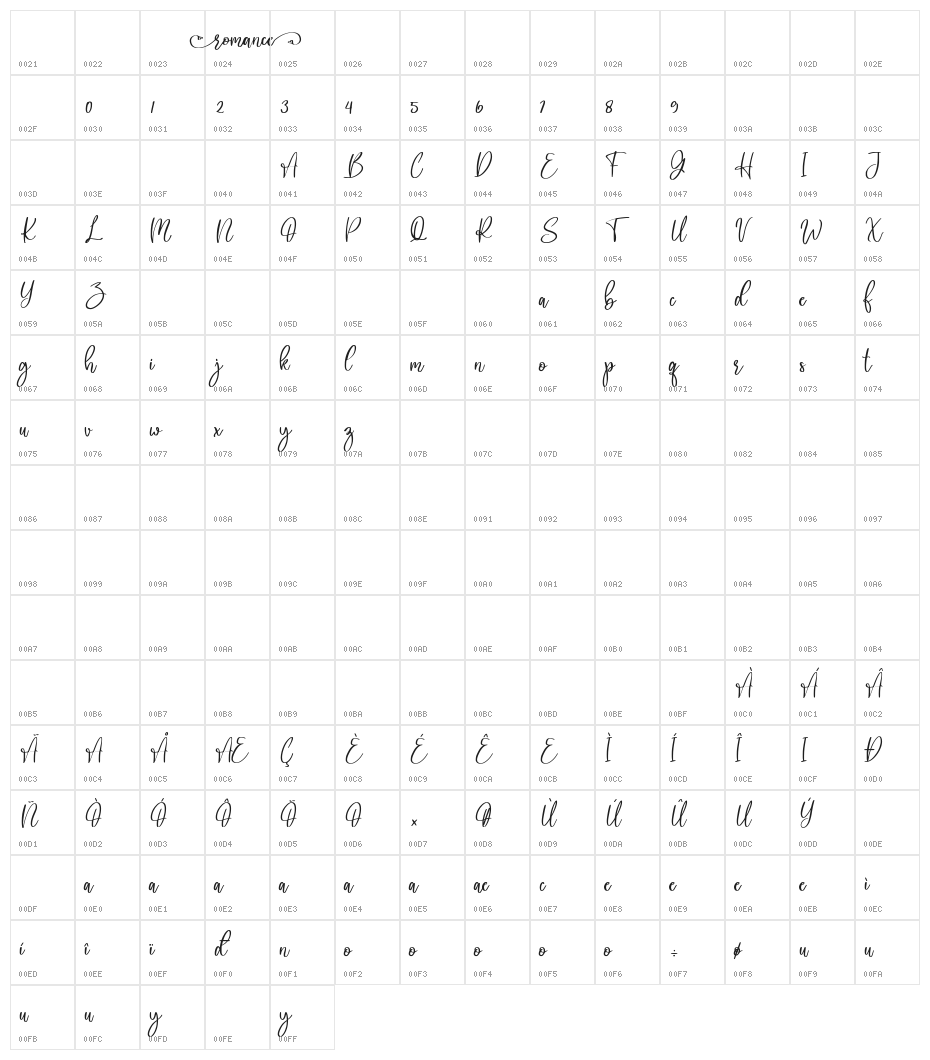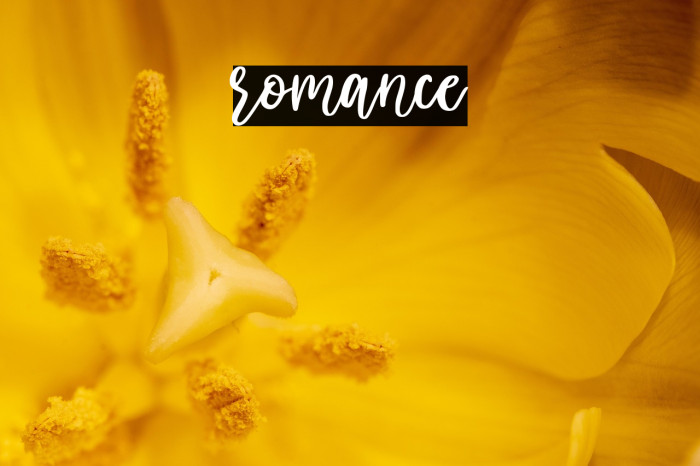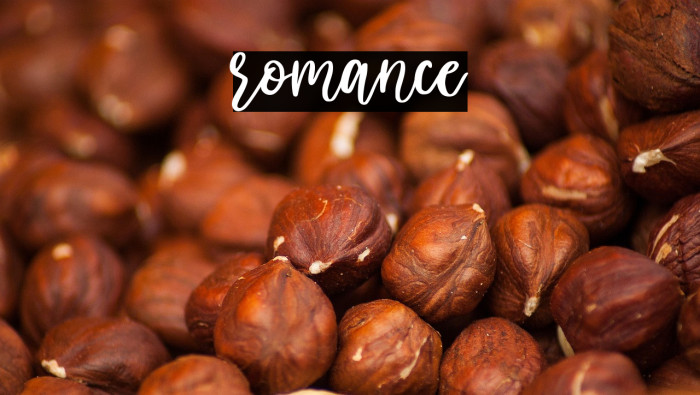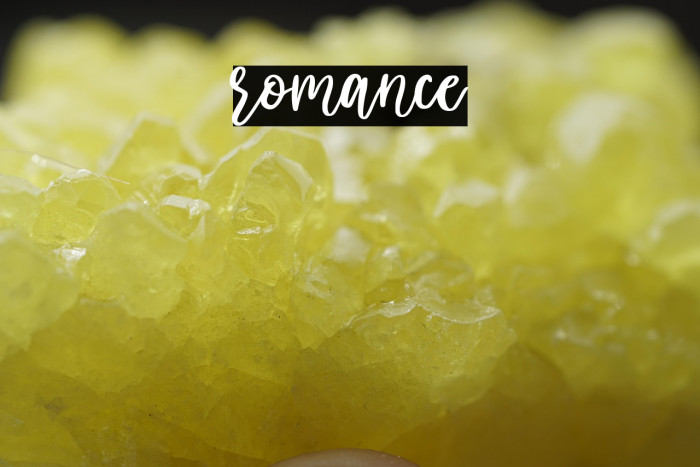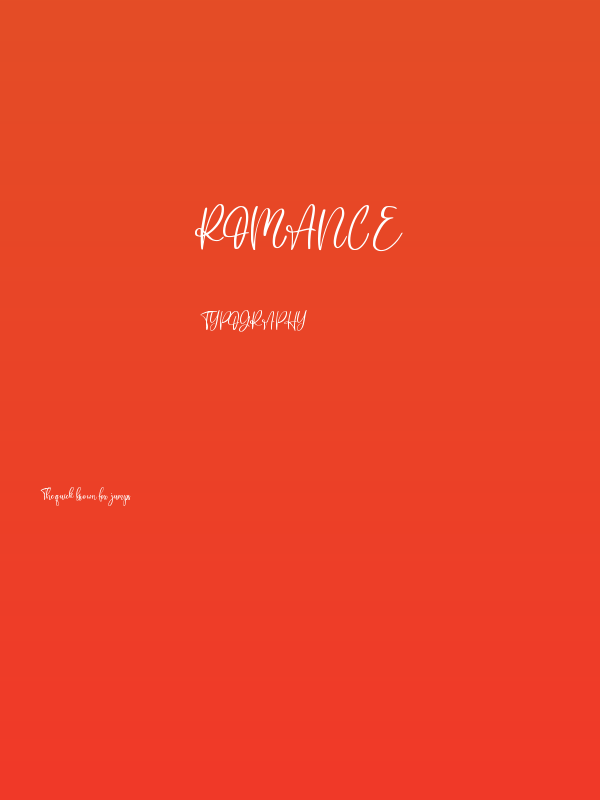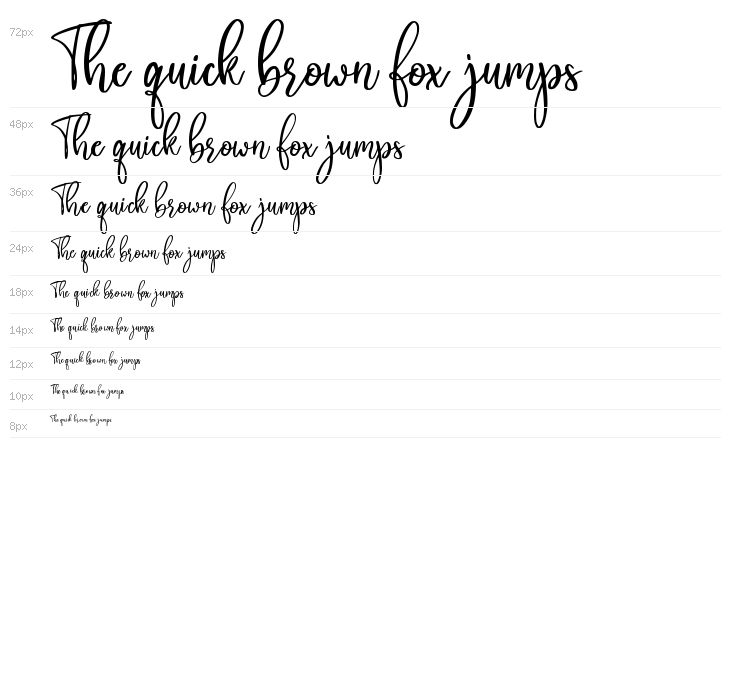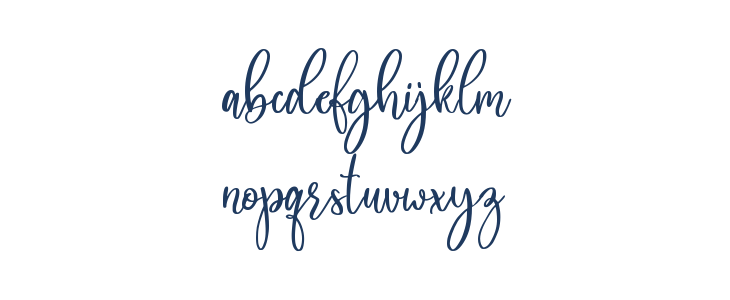
romance Font
romance Description
This elegant script font exudes a sense of romance and sophistication, characterized by its flowing, cursive style. The uppercase letters are tall and graceful, with sweeping curves and loops that give them a sense of movement. The lowercase letters are equally fluid, featuring delicate connections between each character that enhance the overall cohesiveness of the text. The numbers maintain the same graceful style, ensuring consistency throughout. Special characters are adorned with subtle flourishes, adding a touch of whimsy. This font is perfect for projects that require a personal, handwritten touch, such as wedding invitations, greeting cards, and branding materials. Its decorative nature makes it ideal for capturing attention while maintaining an air of elegance.
| Overall Style | Romantic, Elegant, Decorative |
| Use Case | Headlines, Invitations, Branding |
| Proposed Projects | Ideal for wedding invitations, greeting cards, branding materials, and decorative headlines. |